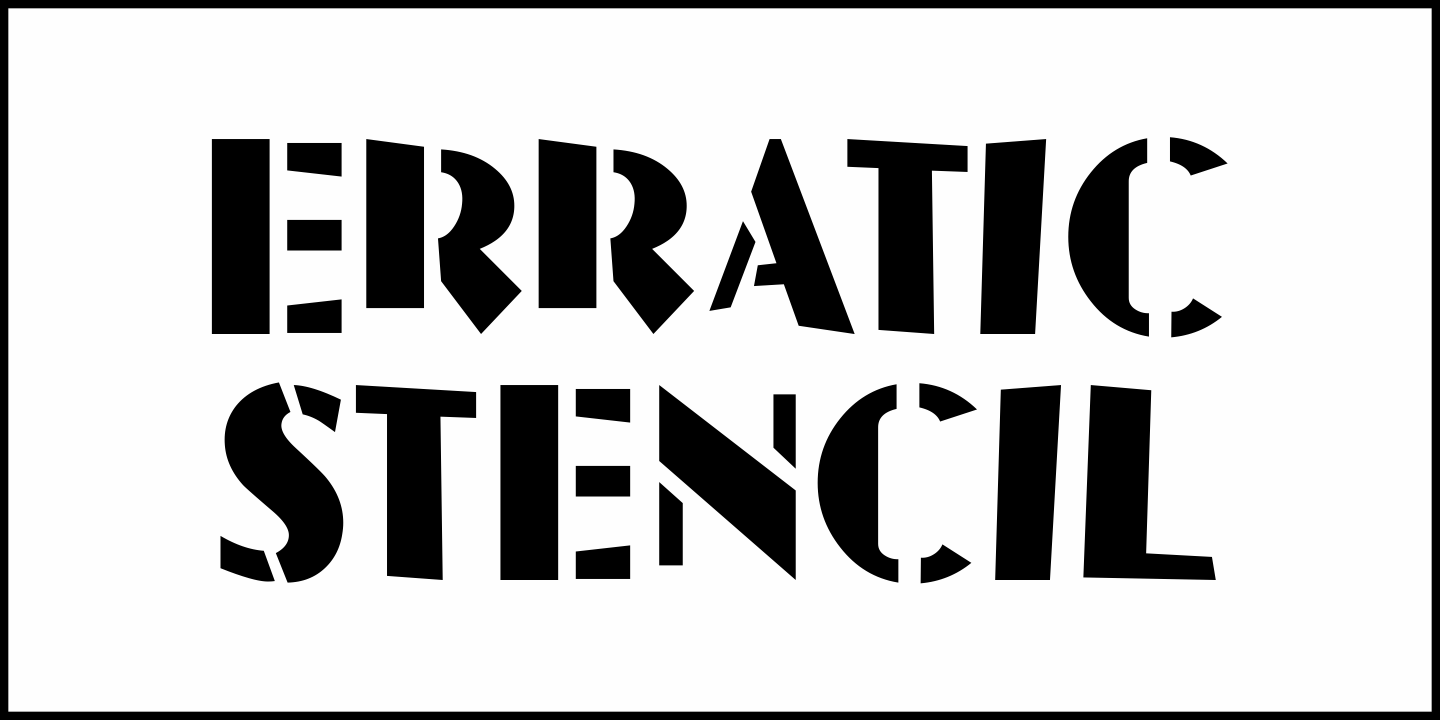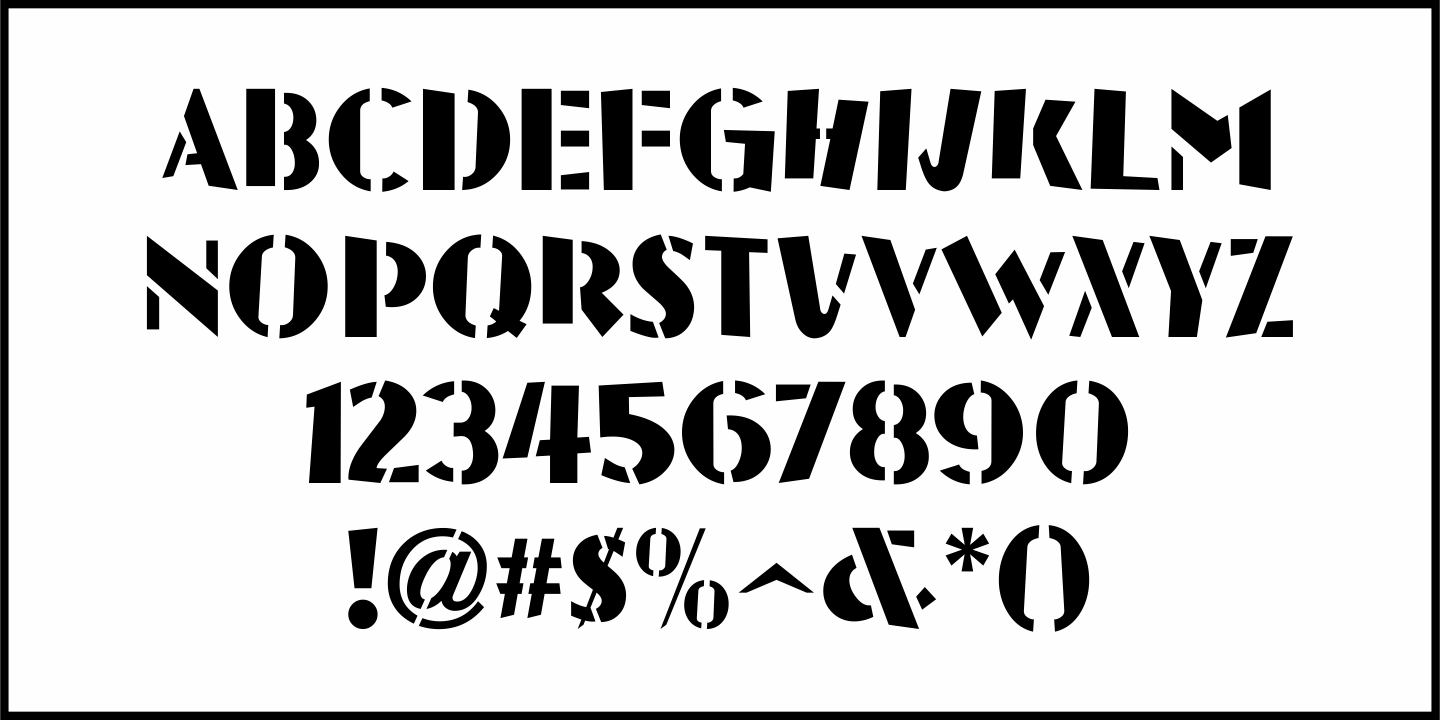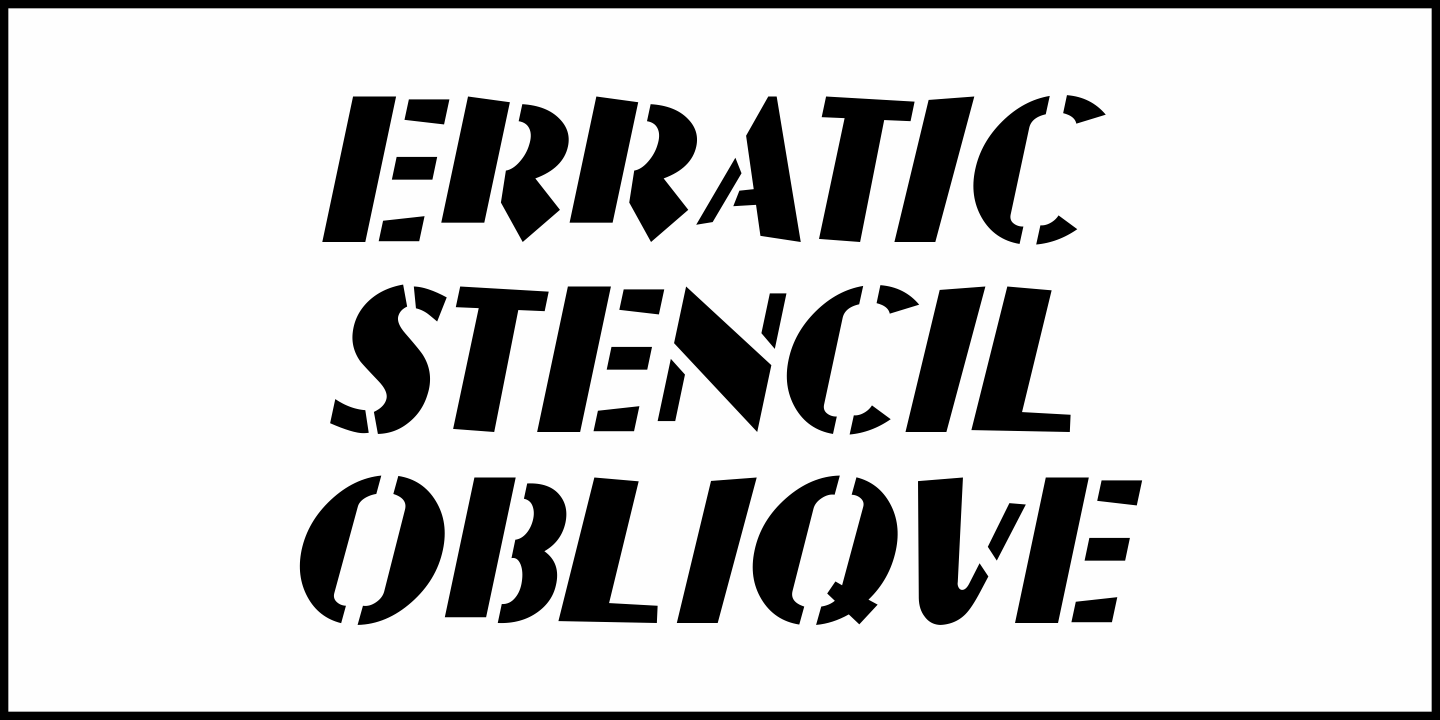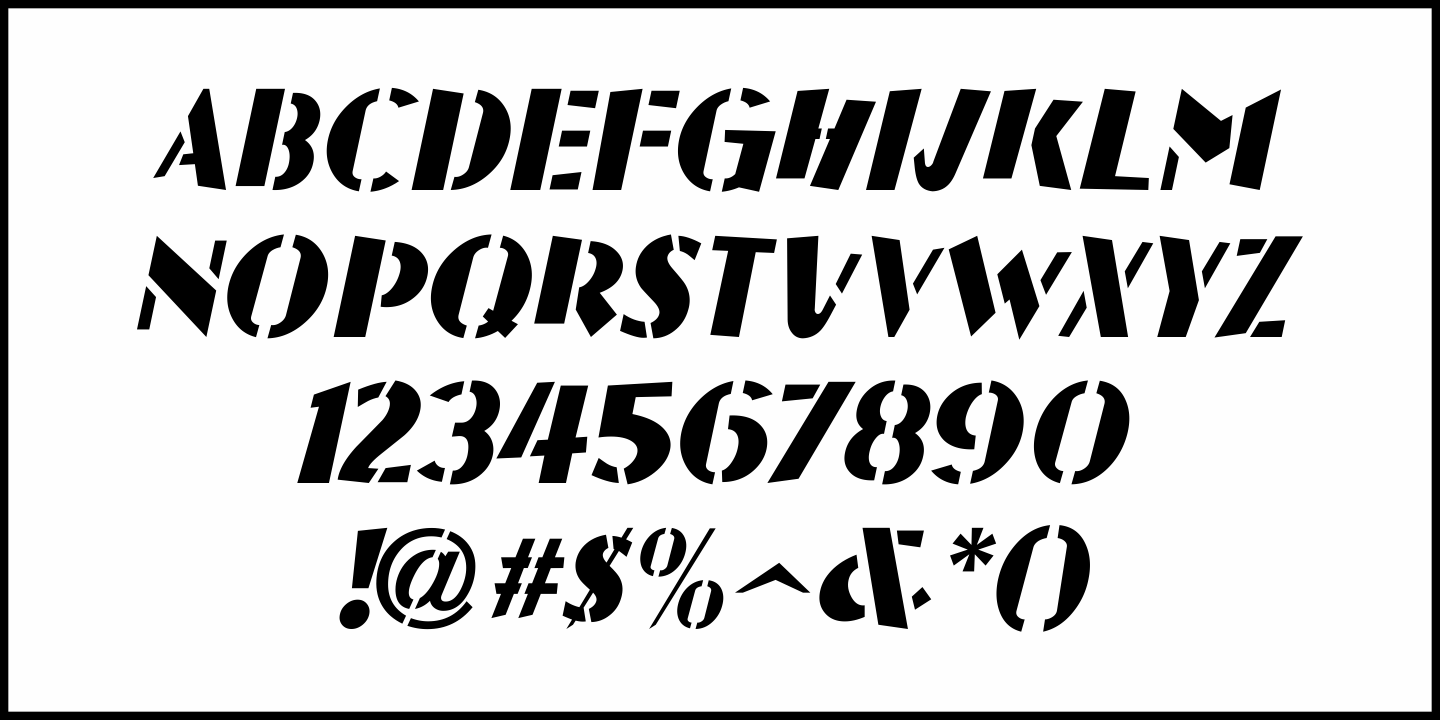
Erratic Stencil JNL
An image of a vintage Burnham Motor Oil brass marking stencil showed the sans serif lettering of the name hand cut in a somewhat erratic way; creating an unintentional novelty type design that seemed perfect for a digital version.
This was the inspiration for Erratic Stencil JNL, which is available in both regular and oblique versions.